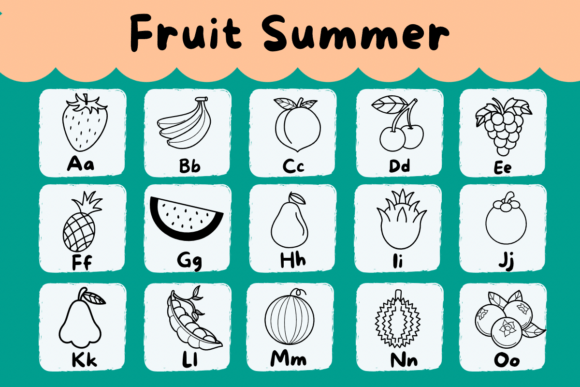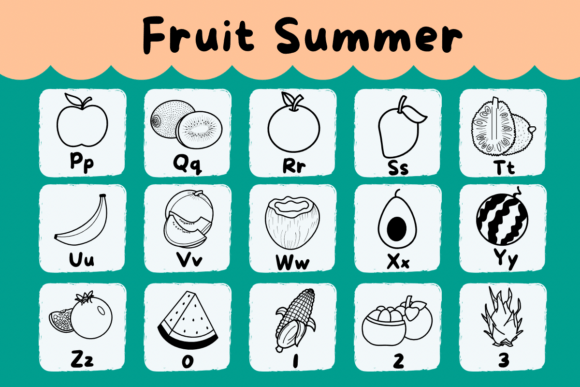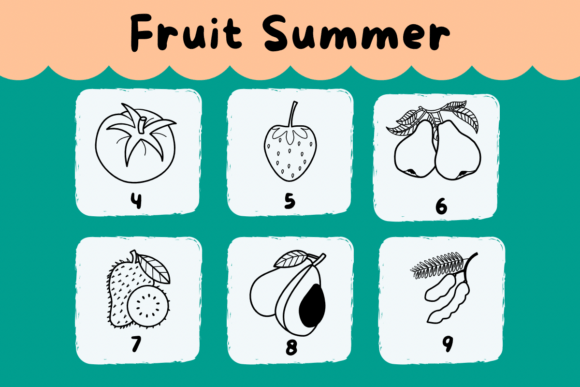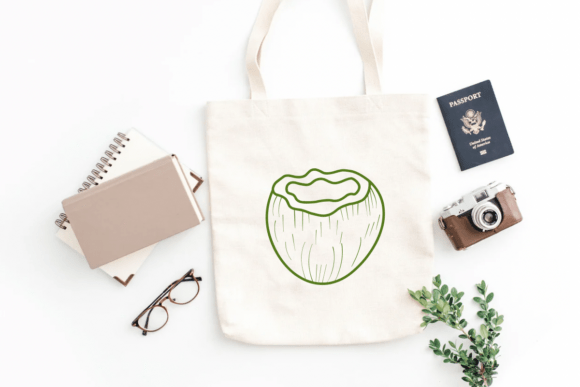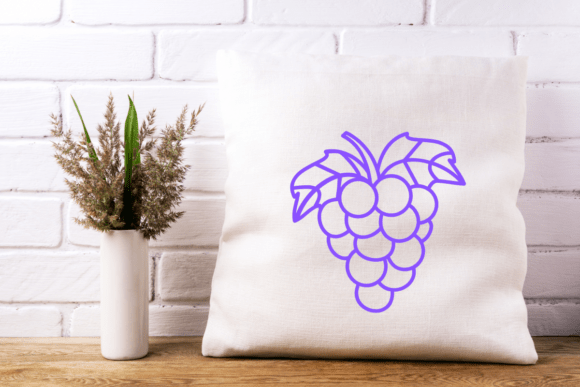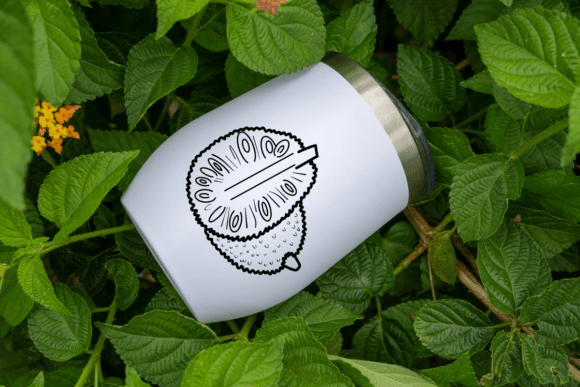
Introduction to Fruit Summer Font
Fruit Summer is dingbats font with as sweet theme.
This font can enhance your creative projects such as wedding invitaations, DIY, crafts, decorations, logos, and many other creative ideas .
Key Features of Fruit Summer Font
Why Choose Fruit Summer Font?
Fruit Summer Font offers exceptional quality and versatility, making it a valuable addition to your design toolkit. Whether you’re creating for personal projects or commercial use, Fruit Summer Font delivers professional results.